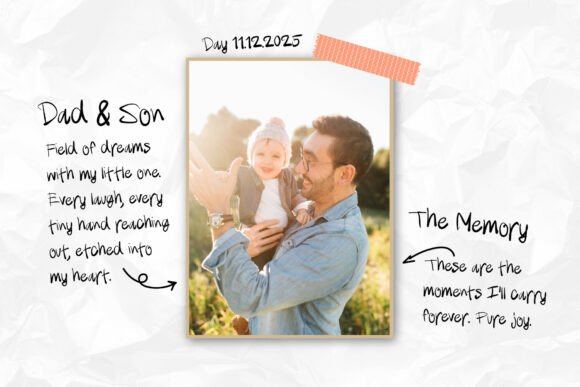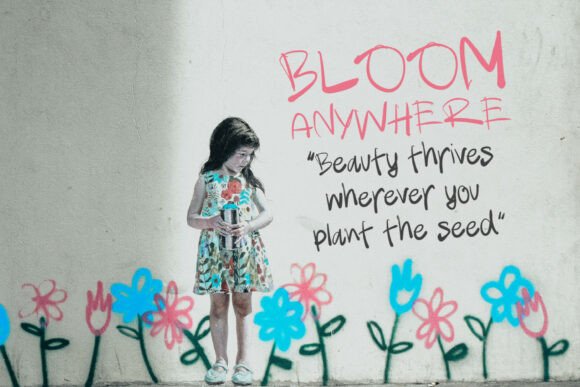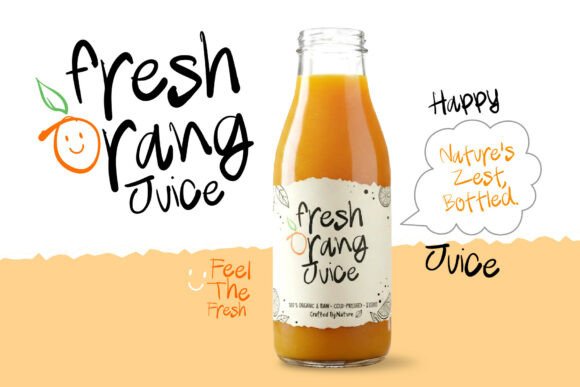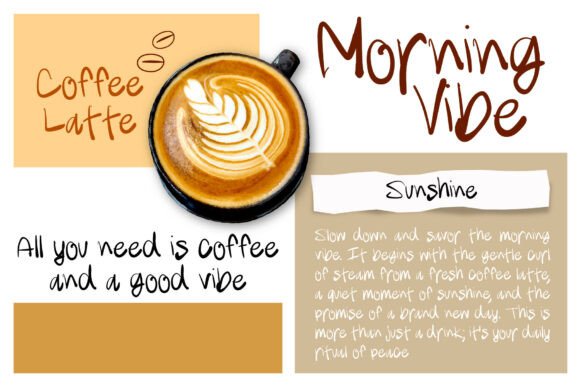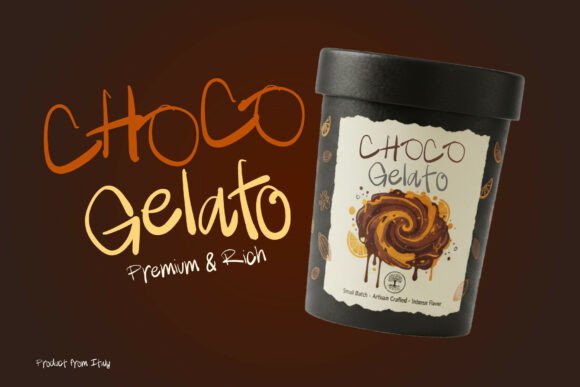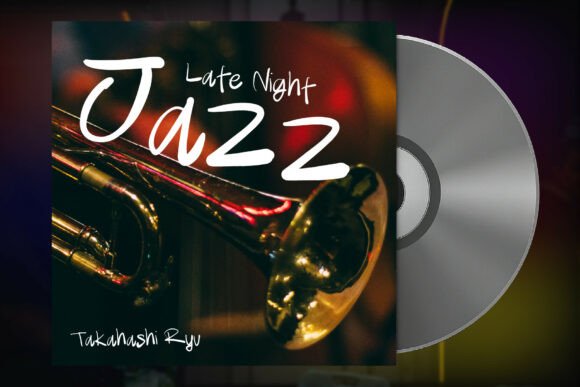
Introduction to Psycho Script Font
Have you ever found yourself scribbling notes in the middle of a chaotic brainstorming session, only to realize that the imperfect, handwritten script you’ve created is actually a thing of beauty? For designers, that “thing of beauty” can be a valuable asset in any creative project. Enter the Psycho Script Font, a high-quality, expressive handwritten script font that captures the raw energy and spontaneity of human movement.
With its unique, slightly unhinged style and erratic baseline, the Psycho Script Font is perfect for designers who want to add a rebellious edge to their projects. Whether you’re working on a free download for a client or creating a high-impact advertising campaign, this font’s ability to convey feeling and motion is invaluable. Plus, with its transparent background and high-quality design, you can rest assured that your design will stand out from the crowd.
Key Features of Psycho Script Font
- Unique, handwritten font style with a touch of psychological twist, perfect for creative projects and design resources.
- Includes 4 styles: Regular, Italic, Bold, and Bold Italic, allowing for versatile usage in creative projects.
Honest Review: Psycho Script Font
As a designer, I’m always on the lookout for unique and high-quality fonts to elevate my creative projects. The Psycho Script Font is one of those gems that caught my attention. With its free download option, I was eager to dive in and see what it had to offer.
- ✨ Unique and playful design: The Psycho Script Font is a masterclass in creative typography. Its irregular strokes and swashes add a touch of whimsy to any text.
- ⚠️ Limited font styles: The Psycho Script Font only comes in a single style, which may limit its versatility for more complex design projects.
- ⚠️ Not suitable for formal text: The font’s playful nature makes it more suited for creative projects, rather than formal or professional text.
Overall, I’m impressed with the Psycho Script Font’s unique design and high-quality craftsmanship. While it may not be suitable for every design project, it’s an excellent addition to any designer’s toolkit for creative projects that require a touch of personality.
Common Use Cases for Psycho Script Font
The Psycho Script Font is ideal for creative projects, such as logos, quotes, titles, and posters. It’s also great for use in presentations, documents, and social media graphics. With its high-quality design and transparent background, this font is a valuable design resource for any creative project.